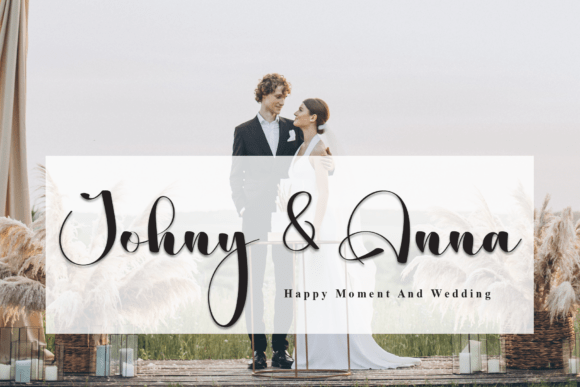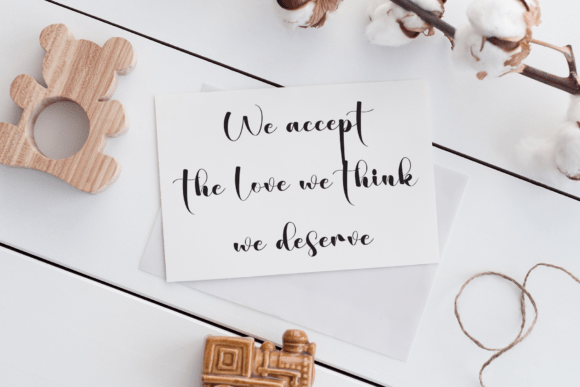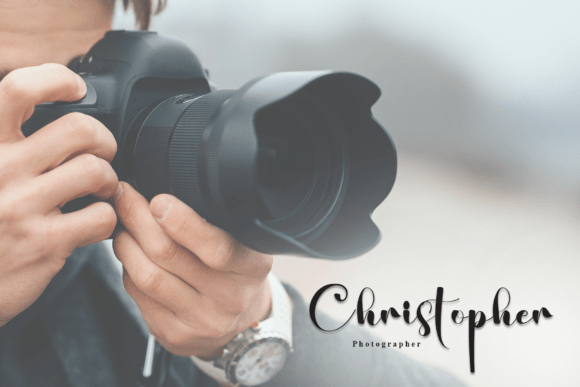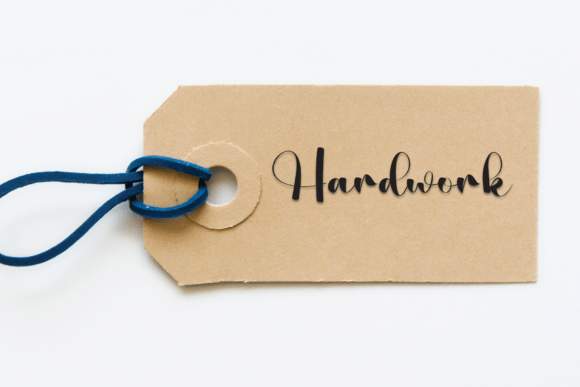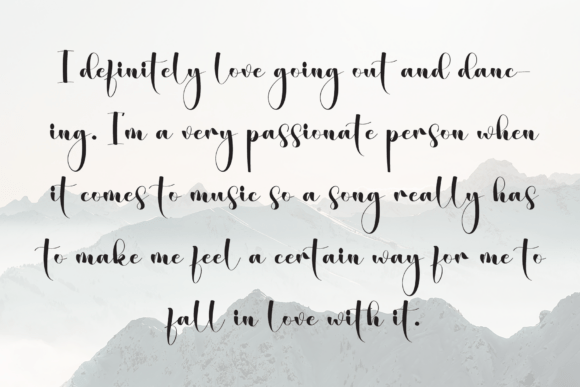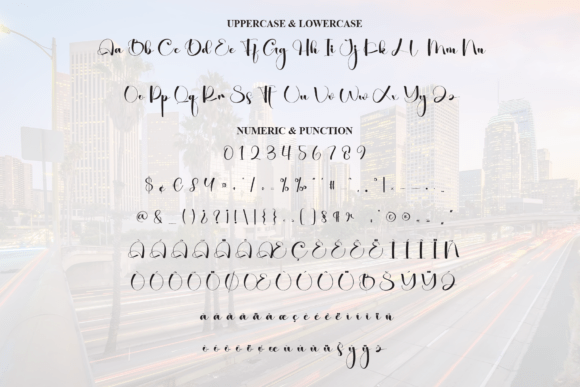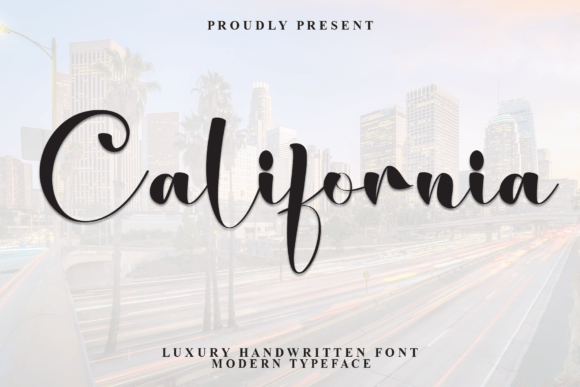
Introducing California Font: Elevate Your Designs with Elegance and Creativity
In the world of typography, fonts play a crucial role in conveying the tone and personality of a brand or design. For those seeking a stylish and modern script font that embodies creativity and sophistication, look no further than California Font. This beautiful font is designed to bring a touch of elegance and artistic flair to various design projects, making it a perfect choice for designers and crafters alike.
The Essence of California Font
California Font is a stunning script font that boasts flowing strokes, graceful curves, and expressive letterforms. Its design draws inspiration from hand-drawn calligraphy, but with a contemporary twist that sets it apart from traditional calligraphic fonts. The result is a font that exudes modern elegance while maintaining a natural, effortless rhythm.
Key Features of California Font
- Flowing Strokes: California Font features smooth, flowing strokes that give it a dynamic and fluid appearance. This characteristic makes it perfect for designs that require a sense of movement and grace.
- Graceful Curves: The font’s curves are meticulously crafted to provide a sense of elegance and sophistication. These curves contribute to the overall aesthetic appeal of the font, making it suitable for high-end designs.
- Expressive Letterforms: Each letterform in California Font is designed to be expressive and unique, adding a touch of personality to any text. This expressiveness ensures that the font stands out in various design applications.
- Contemporary Flair: While inspired by traditional calligraphy, California Font has a distinctly modern feel. This blend of classic and contemporary elements makes it versatile and suitable for a wide range of design projects.
Applications of California Font
California Font’s versatility and aesthetic appeal make it an excellent choice for various design applications. Here are some of the ideal uses for this beautiful font:
- Logos: Create a lasting impression with a logo that features California Font. Its elegance and modernity make it perfect for branding and identity designs.
- Invitations: Whether it’s a wedding invitation, a birthday party invite, or any other special occasion, California Font adds a touch of sophistication and charm.
- Packaging: Elevate your product packaging with a font that conveys luxury and creativity. California Font is sure to make your products stand out on store shelves.
- Social Media Graphics: Enhance your social media presence with eye-catching graphics that feature California Font. It’s perfect for creating engaging posts, stories, and banners.
Why Choose California Font?
With so many fonts available, why should designers and crafters choose California Font for their projects? Here are a few compelling reasons:
- Visual Charm: California Font offers a unique combination of elegance and creativity, making it a visually appealing choice for any design.
- Versatility: Its adaptability to various design applications, from logos to social media graphics, makes it a valuable addition to any designer’s toolkit.
- Refined Details: The font’s attention to detail ensures that it looks refined and polished, adding a professional touch to any project.
California Font is a stylish script font that brings a perfect blend of creativity, modern elegance, and sophistication to various design projects. Its flowing strokes, graceful curves, and expressive letterforms make it an ideal choice for designers and crafters looking to add an artistic touch to their work. Whether you’re creating logos, invitations, packaging, or social media graphics, California Font is sure to deliver both visual charm and versatility. Elevate your designs with the beauty and elegance of California Font – a true gem in the world of typography.